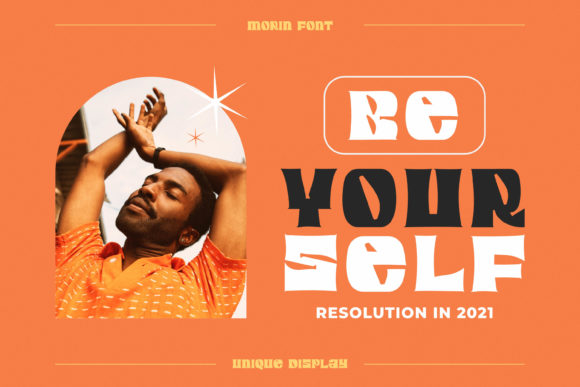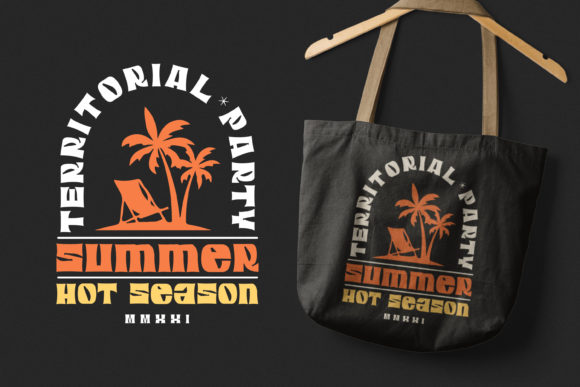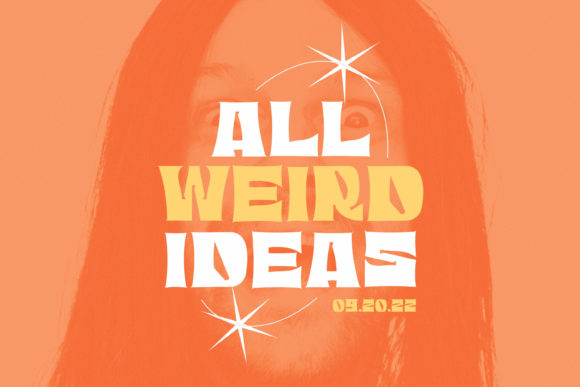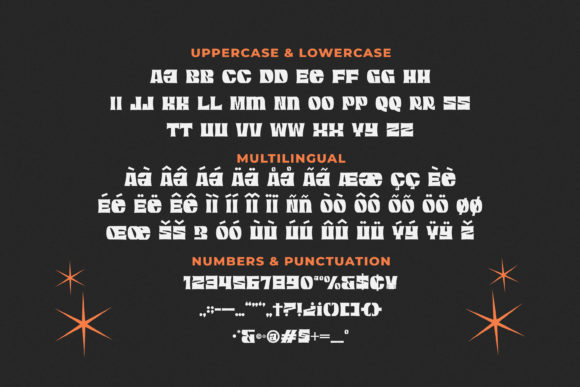
Introduction to Morin Font
Imagine you’re in the middle of a creative project, and you’re struggling to find the perfect font to give it that extra oomph. The words are flowing, the ideas are pouring in, but something’s missing – that special something that sets your design apart from the rest. That’s where Morin Font comes in – a high-quality, bold display font that’s sure to add a unique touch to your next creative project.
With its thick, imposing letters and uniquely shaped characters, Morin Font is the perfect design resource for anyone looking to make a statement. Whether you’re working on a logo, a poster, or a website, this font is sure to provide a distinct touch that will leave a lasting impression. And the best part? It’s available for free download, making it an invaluable resource for designers on a budget.
From transparent backgrounds to intricate typography, Morin Font is a versatile design tool that’s waiting to be unleashed on your next creative project. So why settle for ordinary when you can have extraordinary? Download Morin Font today and discover a whole new world of design possibilities.
Key Features of Morin Font
- High-quality, vector-based design resource suitable for various creative projects.
- Features a transparent background, allowing for seamless integration into your design.
- Includes a range of glyphs, including letters, numbers, and symbols, making it a versatile design resource.
- Designed with a modern aesthetic, ideal for use in digital and print-based creative projects.
- Supports various font sizes and resolutions, from small to large-scale applications.
Honest Review: Morin Font
I recently had the chance to work with the Morin Font, and I must say it’s a great addition to any designer’s toolkit. This high-quality font is perfect for creative projects that require a unique and elegant touch.
Here are some of the things that work well with the Morin Font:
- ✨ High-quality design: The font is beautifully crafted, with a focus on detail and sophistication.
- ✨ Transparent background: The font’s transparent background makes it easy to overlay on images or use as a design element.
- ⚠️ Limited font styles: While the font is beautiful, it’s limited in terms of font styles, which may not be suitable for projects that require a wide range of options.
- ⚠️ Not suitable for body text: The font is best used for headings and titles, as it can be difficult to read in large blocks of body text.
Overall, I’m impressed with the Morin Font, and I think it’s a valuable resource for designers working on creative projects. Just be aware of its limitations and use it accordingly.
Morin Font is a high-quality design resource perfect for creative projects that require a unique and elegant touch. This free download offers a transparent background, making it easy to integrate into various design platforms.
Tips for Getting the Most Out of Morin Font
1. Experiment with different font sizes and colors to create a unique look.
2. Use Morin Font in combination with other design elements to add depth and interest to your project.
Common Use Cases for Morin Font
Morin Font is perfect for:
1. Wedding invitations and stationery.
2. Branding and logo design.
3